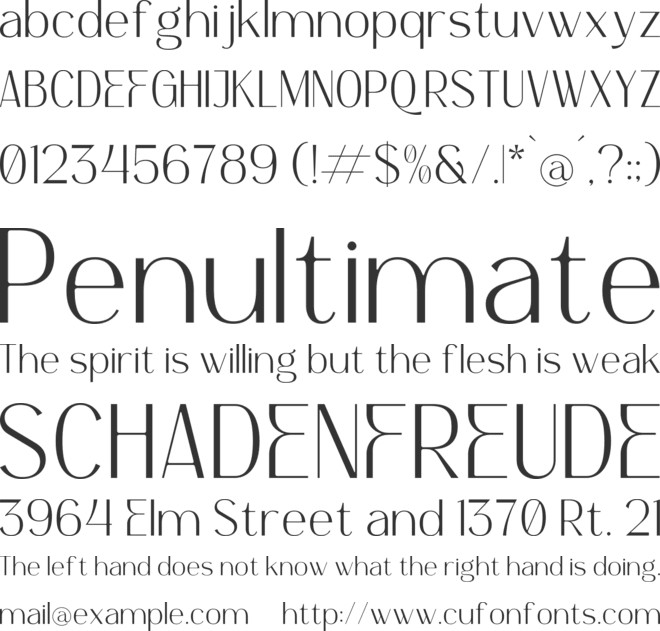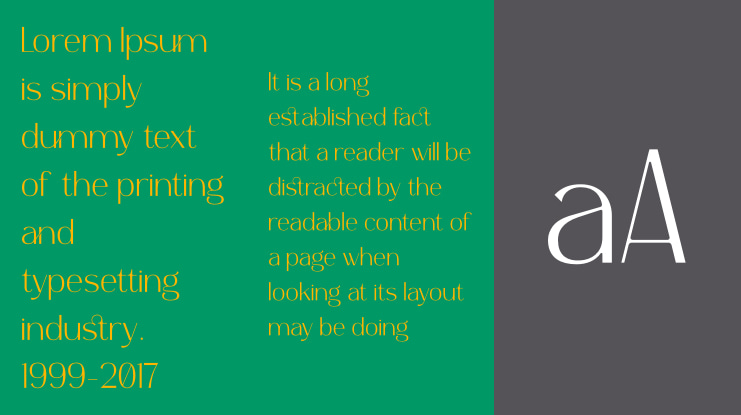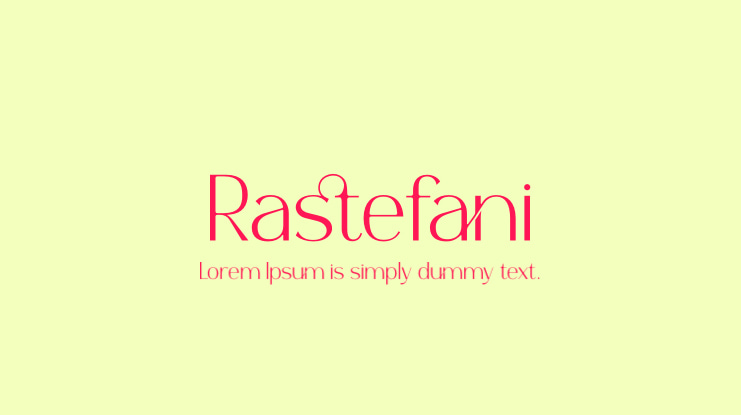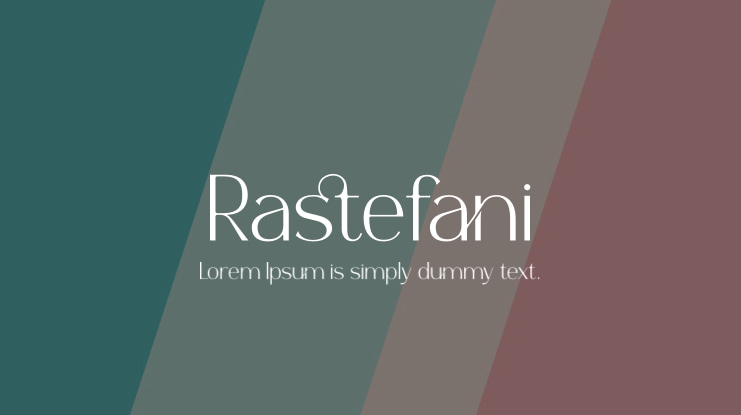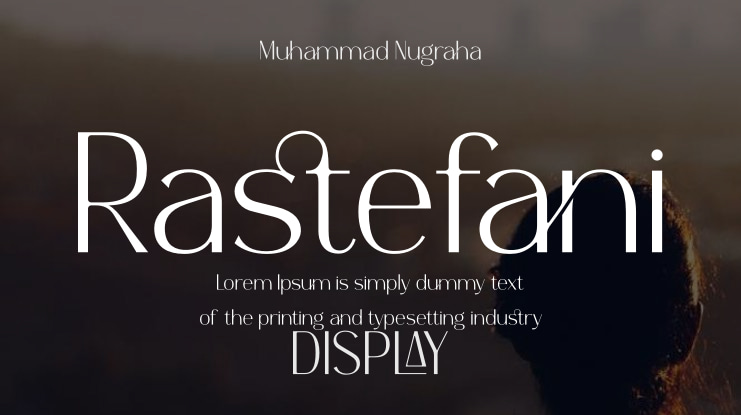
Rastefani | Modern San Serif is suitable for any projects such as: logos, branding projects, homeware designs, product packaging, mugs, quotes, posters, shopping bags, t-shirts, book covers, name card, invitation cards, greeting cards, label, photography, watermark, special events, and all your other lovely projects that need a beautiful script taste.